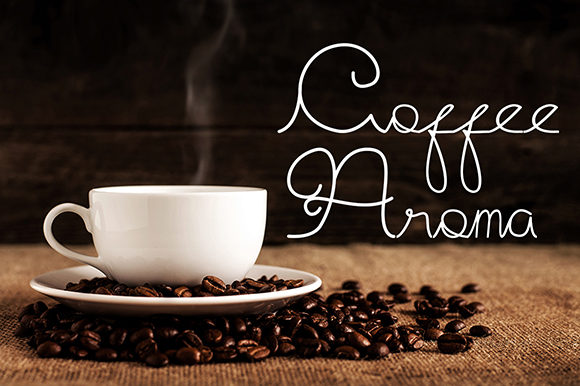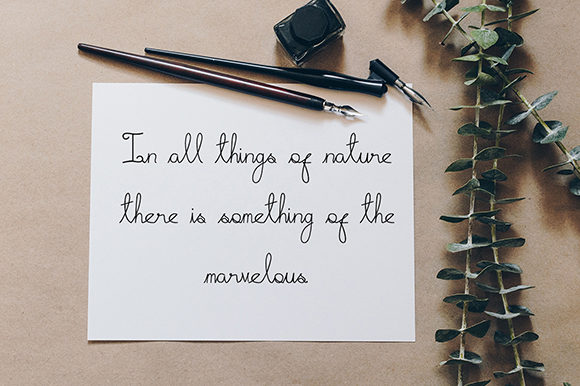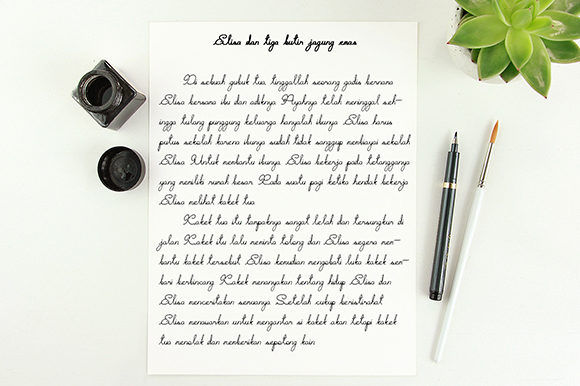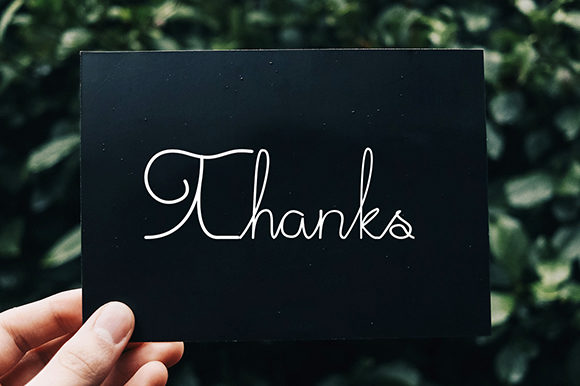
HomeScript FontsSemanggi Font Script Fonts Semanggi Font FacebookXPinterestWhatsApp Semanggi Font Poster 2 Semanggi Font Poster 3 Semanggi Font Poster 4 Semanggi Font Poster 5 About Semanggi Font Semanggi is a cute and charming handwritten font with a unique twist. It will add a cute spark to any design idea. DOWNLOAD NOW People also explored Magdallena Font Andi Font Happy New Year Font Ninja Font Lambreta Font The Rivers Font Lemonade Font Xero – Hollow Font Regitha Aston Font 350 0 TagsSemanggi Font Previous articleRalliankara FontNext articleStarled Font LEAVE A REPLY Cancel reply Comment: Please enter your comment! Name:* Please enter your name here Email:* You have entered an incorrect email address! Please enter your email address here Website: Save my name, email, and website in this browser for the next time I comment. Personal Use Free Equalizer Script Personal Use Free Read more about this font Avagan Personal Use Free Read more about this font New Normal Personal Use Free Read more about this font Puisi Adinda Personal Use Free Read more about this font BLOG 5 Fonts That Will Dominate Design Trends in 2026 5 Fonts for 2026 That Will Dominate Design Trends Typography plays a critical role in visual communication, and as we look ahead to 2026, it’s... Top 10 Handwritten Fonts That Elevate Your Designs Using Fonts in Digital Marketing: Tips to Strengthen Your Brand Identity Modern Sans-Serif Fonts That Brands Love in 2025